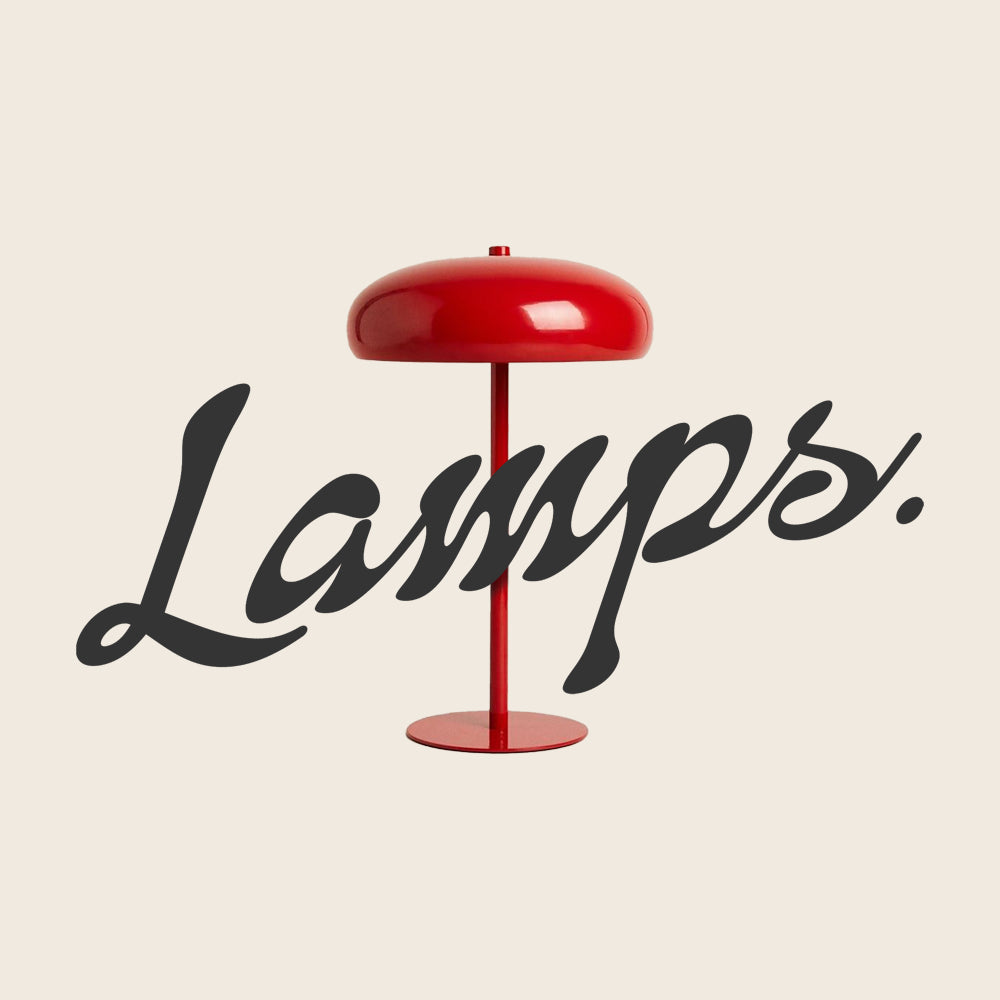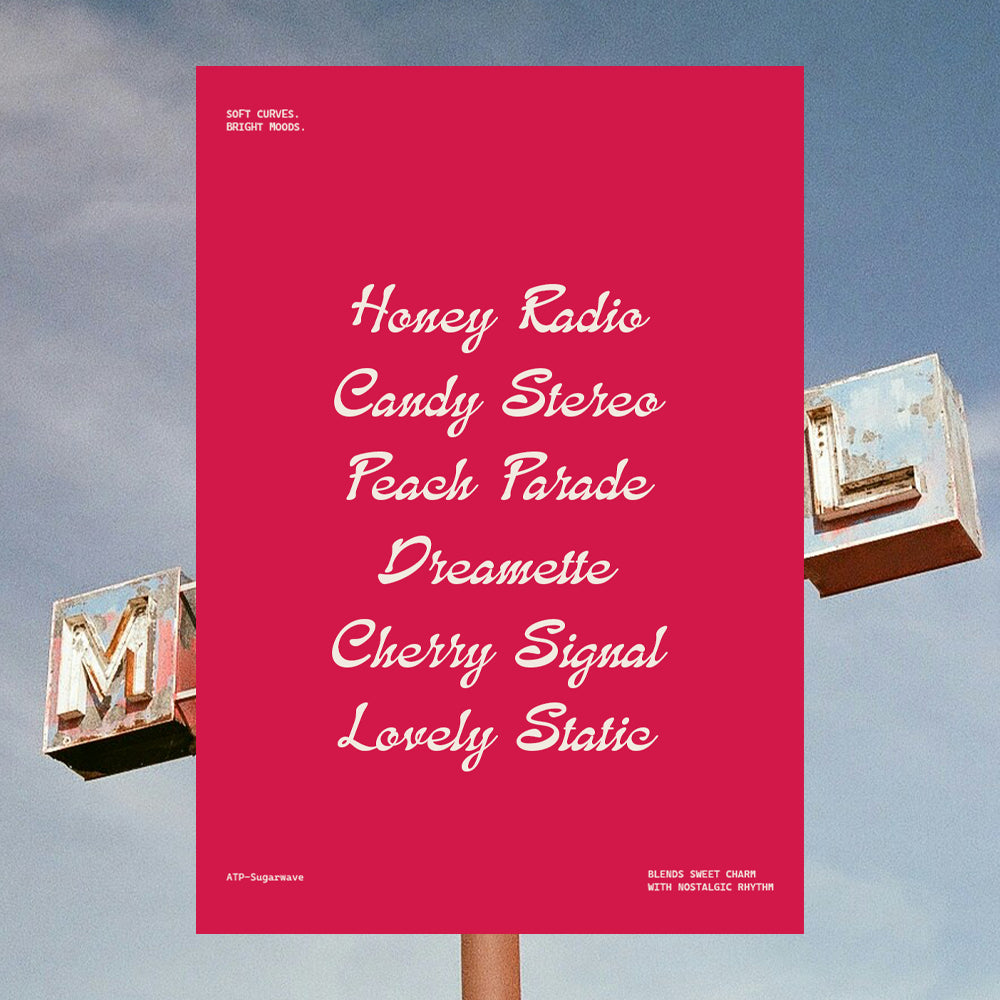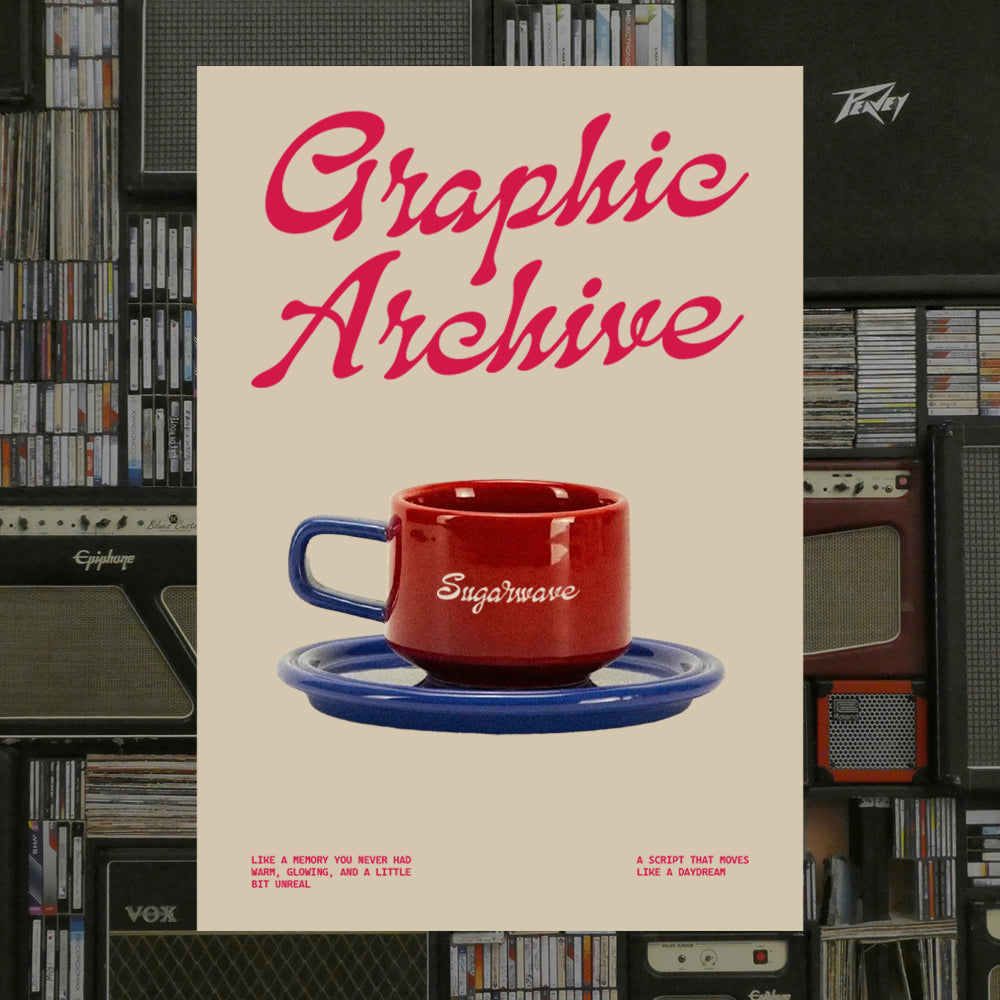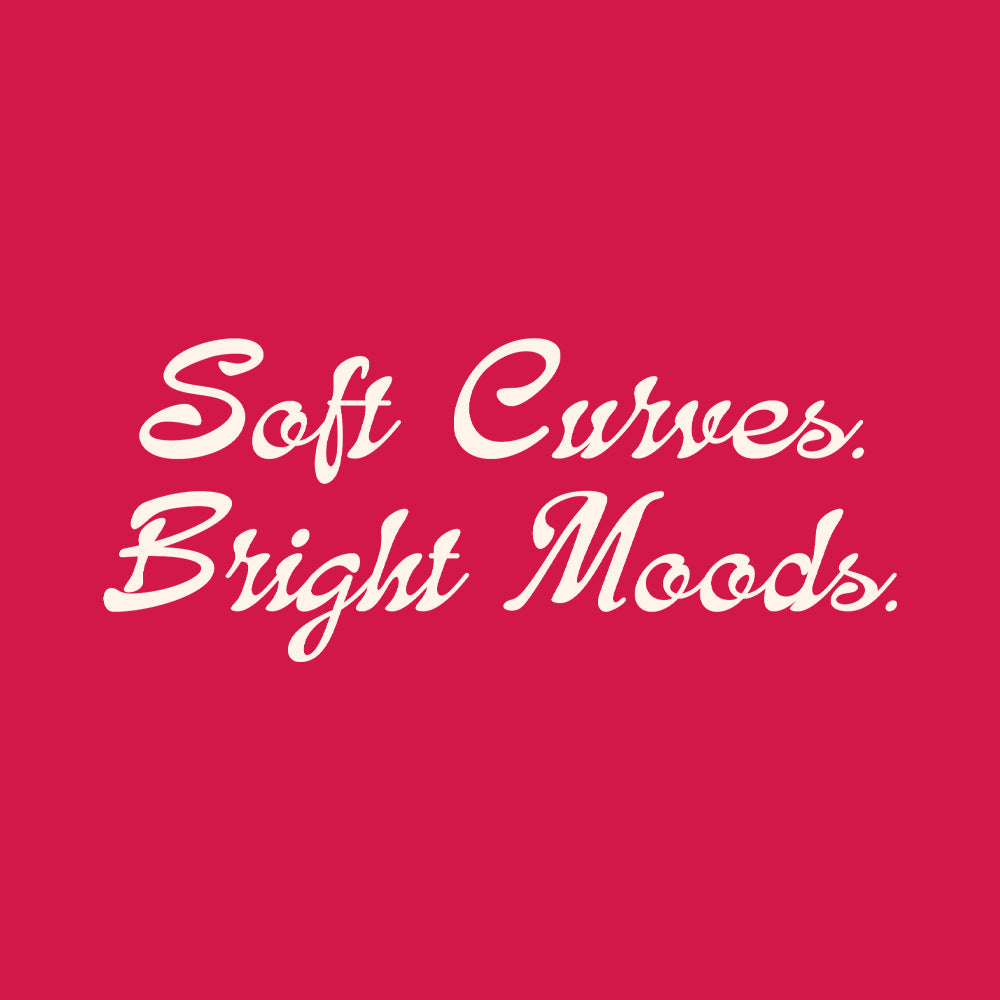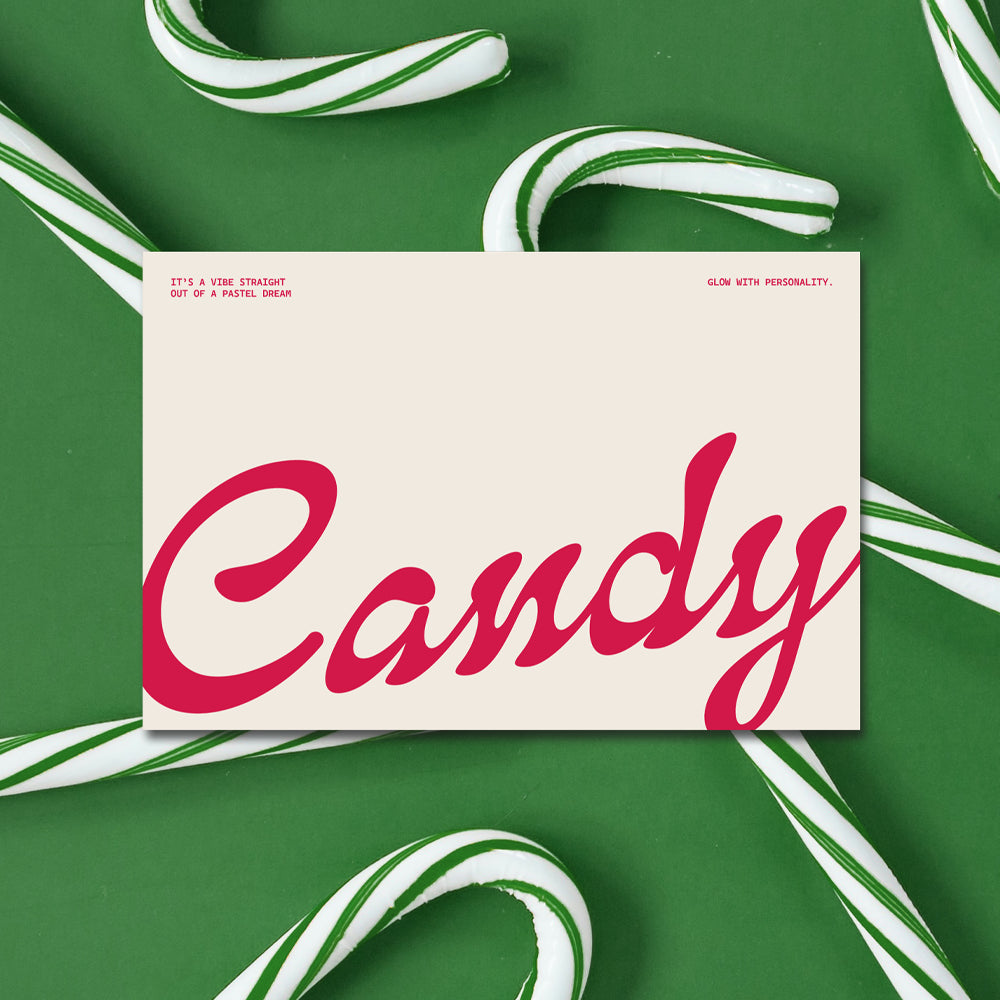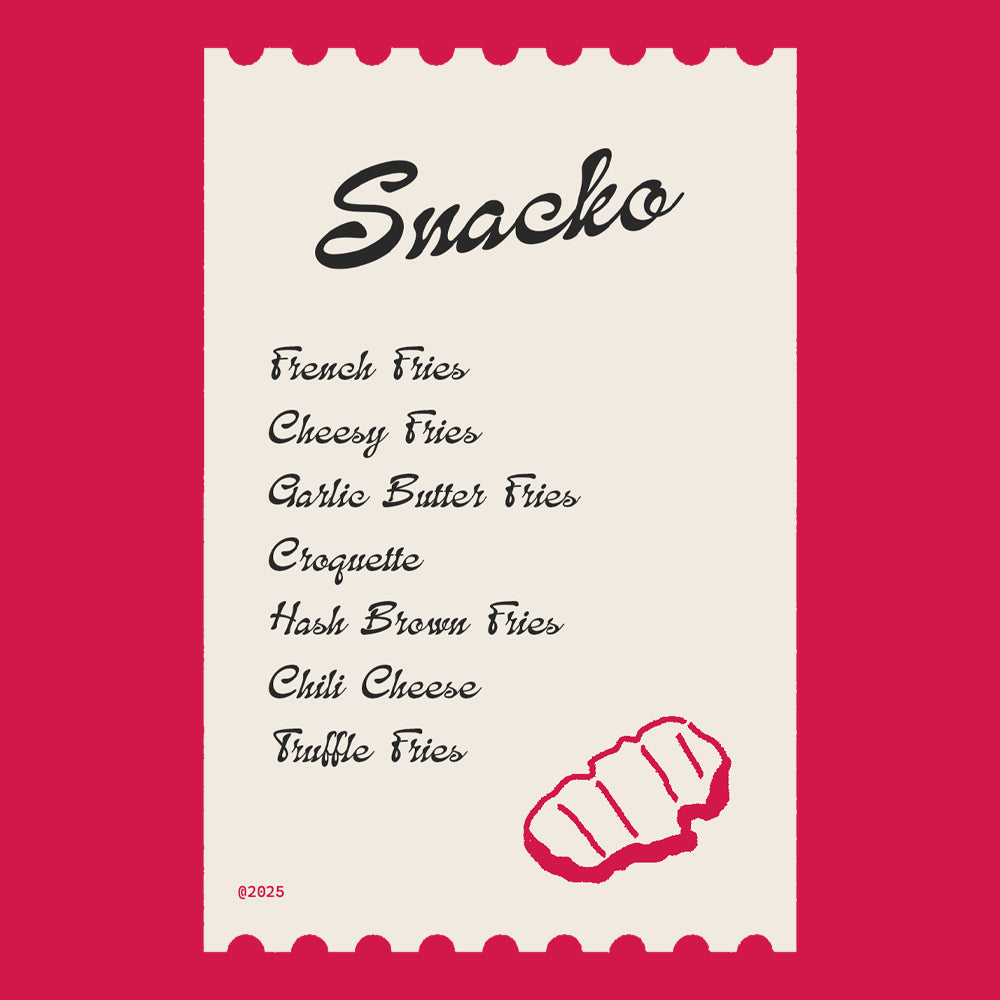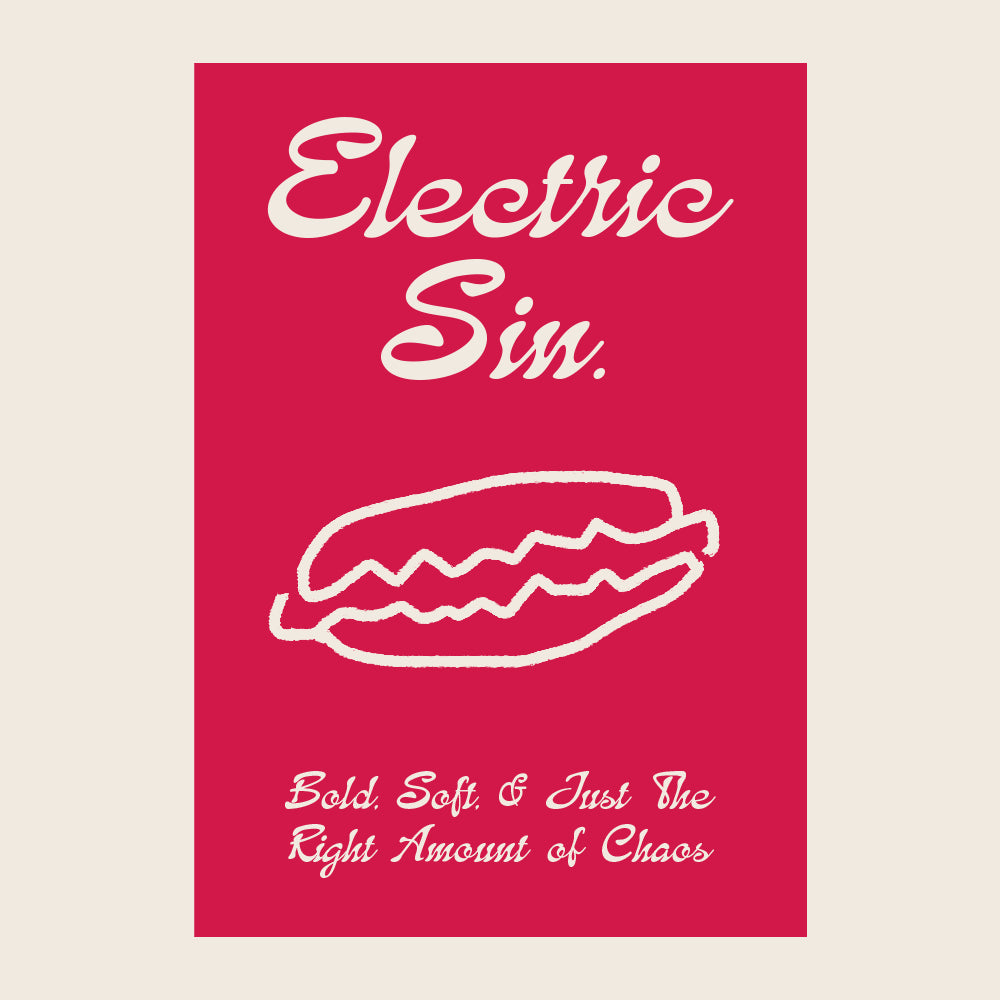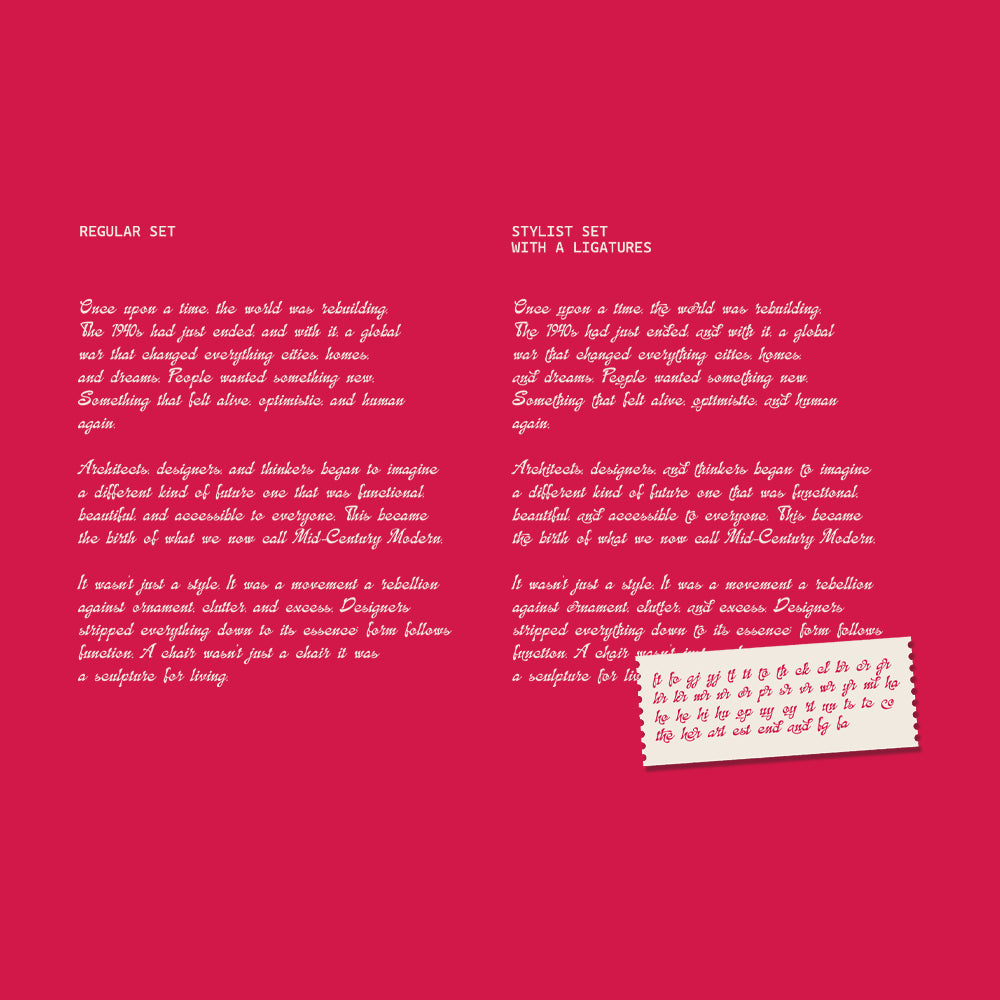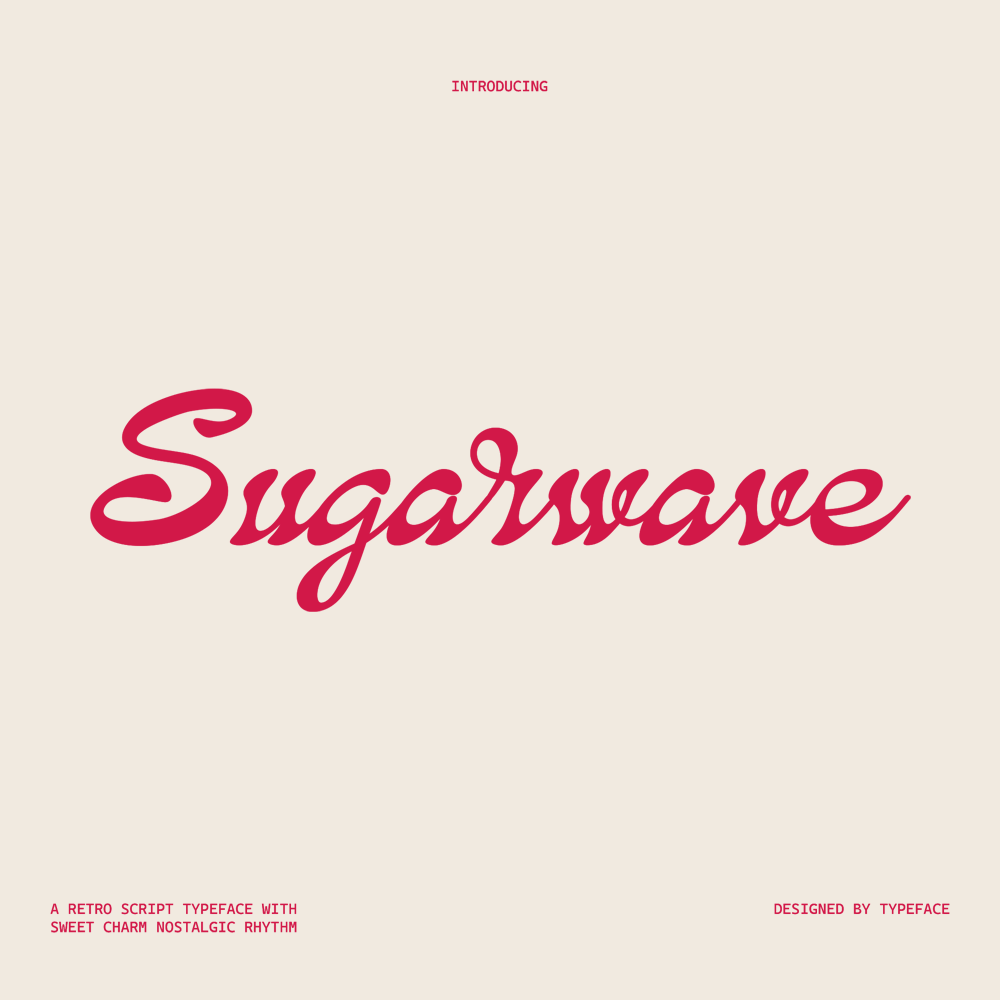
Sugarwave - Retro Script Font
Sugarwave is a retro script font featuring a blend of smooth curves and rhythmic design elements. It is suitable for various applications and is categorized as a handwritten and vintage script typeface.